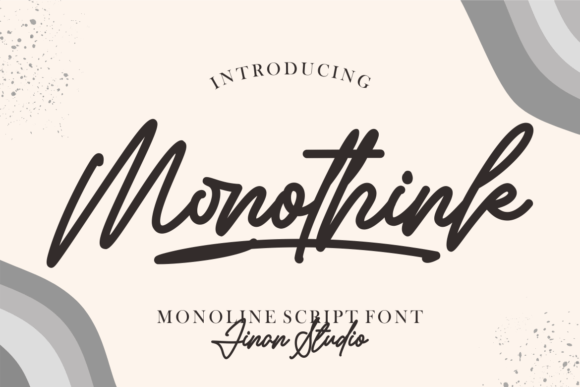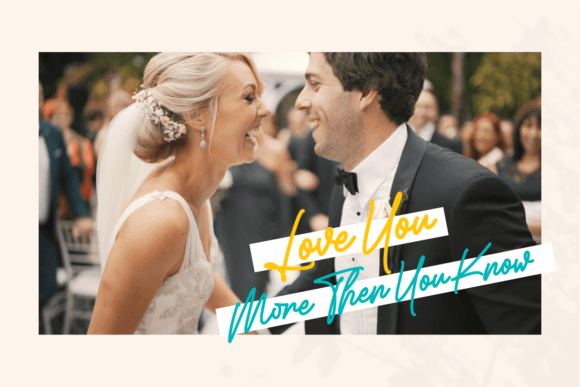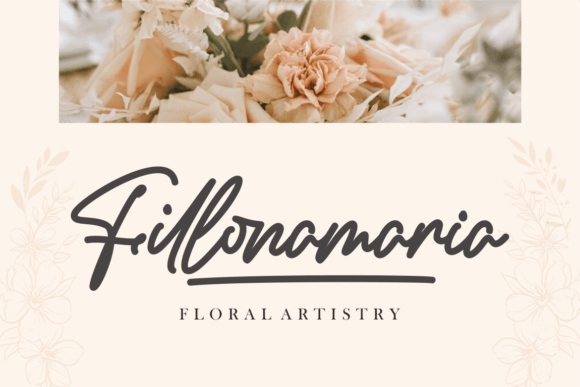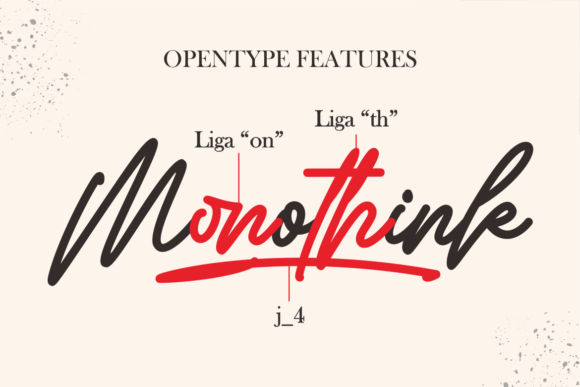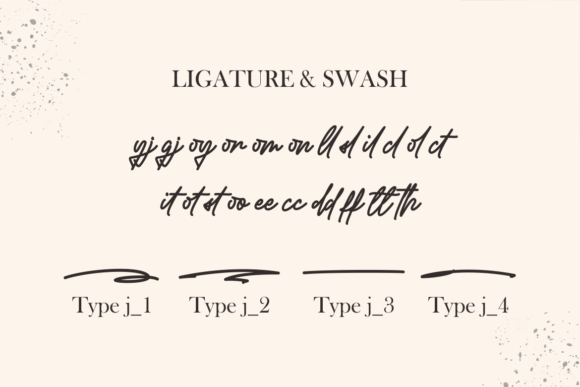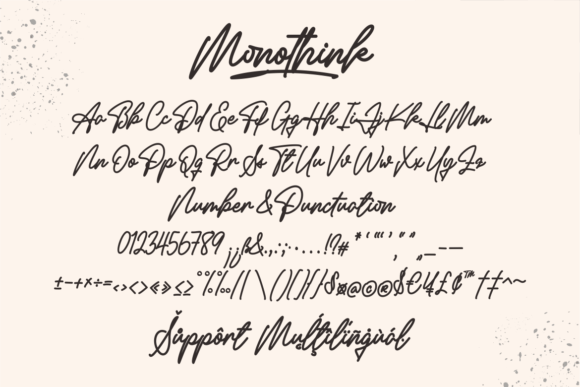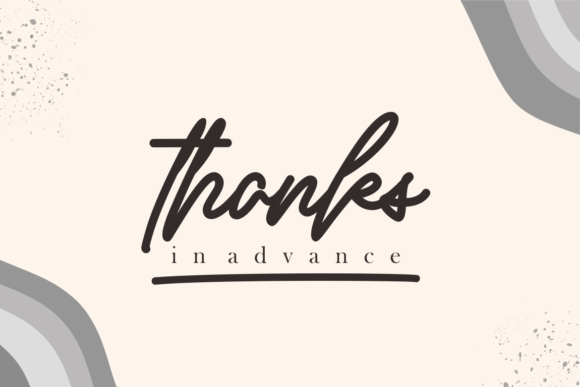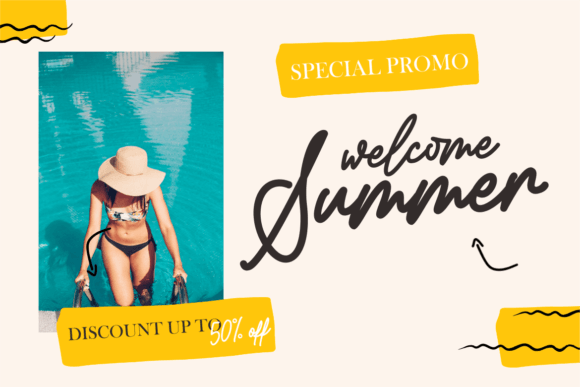
Monothink Font
About Monothink Font
“Monothink: Where Style Meets Modern Elegance in Handwritten Typography
Introducing Monothink, a stylish and modern monoline handwritten font designed to add a touch of sophistication to your creative endeavors. With its sleek lines and contemporary flair, this font is not just a typeface; it’s a statement of modern elegance. From greeting cards to headlines, Monothink guarantees a romantic touch to each of your creations, making them visually appealing and emotionally resonant.
The allure of Monothink lies in its stylish and modern monoline design, where each letter is meticulously crafted to exude a sense of sophistication and charm. Its sleek lines and elegant curves create a visual harmony that adds a touch of romance to your designs. Imagine your greeting cards adorned with Monothink’s modern elegance, conveying heartfelt messages with a contemporary twist. Picture your headlines featuring its sleek letterforms, capturing attention with a sense of modern sophistication. With Monothink, your creations come to life with a touch of romance, making them visually captivating and emotionally resonant.
One of Monothink’s standout features is its versatility. Its modern monoline design allows it to adapt seamlessly to various applications, from branding projects to social media graphics and everything in between. Whether you’re designing logos, crafting invitations, or working on any project that demands a stylish and romantic touch, Monothink enhances your designs with its contemporary elegance, making them stand out with a unique blend of modernity and charm.
Moreover, Monothink is more than just a font; it’s a creative tool that elevates your artistic expressions. Its stylish and modern design resonates with individuals who appreciate the beauty of handwritten typography with a contemporary twist, making it a favorite among designers and enthusiasts seeking a font that exudes sophistication and modern elegance. Its presence adds a layer of depth and style to your designs, making them visually captivating and unforgettable.
In a world where modernity meets tradition, Monothink helps you make a statement. It speaks the language of style and contemporary elegance, resonating with those who appreciate the fusion of classic romance and modern design. Whether you’re designing for special events, branding, or any creative endeavor, Monothink becomes your trusted companion, guiding you toward design excellence.
So, why settle for ordinary when you can embrace the extraordinary with Monothink? Let this stylish and modern monoline handwritten font be the muse for your creative expressions, and watch as your projects come to life with sophistication, charm, and timeless romance. Let your creativity flow, and let Monothink be the brushstroke that paints your ideas into visually captivating masterpieces, leaving a lasting impression on the hearts of your audience.”